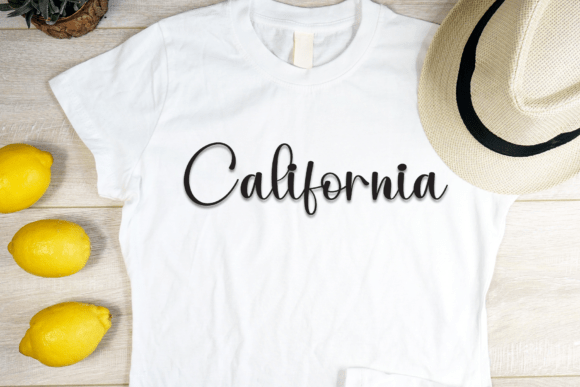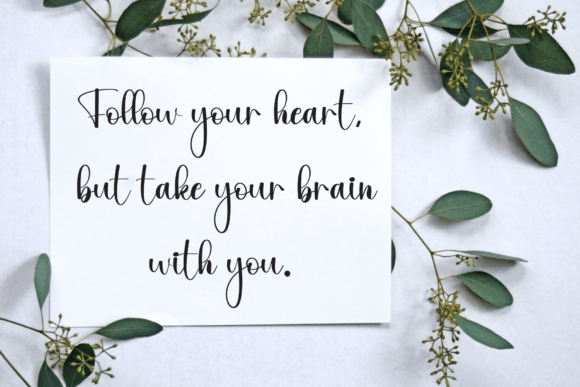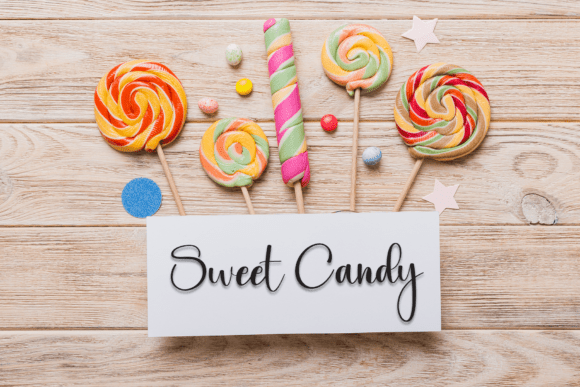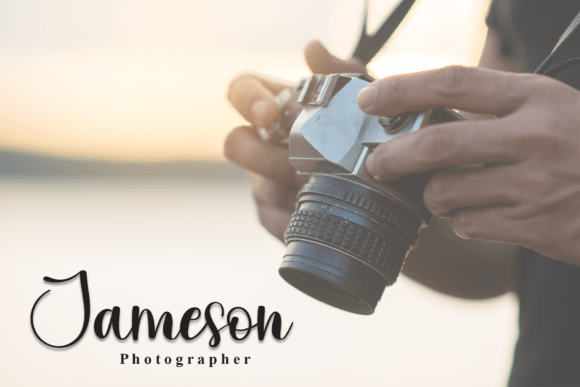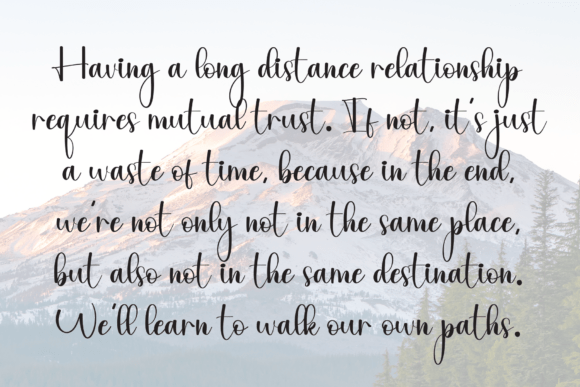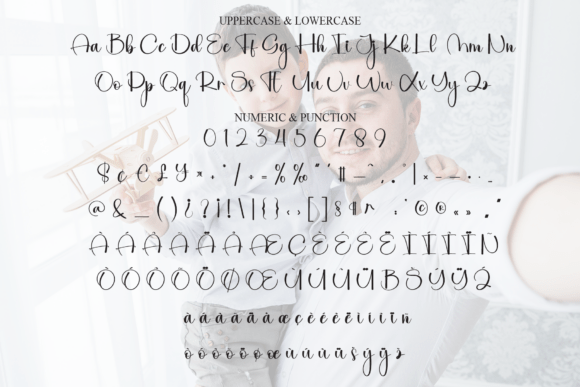
Introducing Father Font: A Heartwarming Handwritten Script for Sentimental Designs
In the world of typography, fonts play a crucial role in conveying emotions and setting the tone for a design. When it comes to creating sentimental and personal projects, a font that exudes warmth and friendliness is essential. This is where “Father” Font comes into play – a beautiful, handwritten script that combines heartfelt charm with a touch of modern flair.
The Characteristics of Father Font
“Father” Font is a long swash, casual script-style font that boasts a unique and captivating aesthetic. Its characteristics can be summarized as follows:
- Warm and Playful: The font features a warm and playful tone that makes it perfect for designs that require a personal touch.
- Handwritten Style: The font’s handwritten style gives it a human and organic feel, making it ideal for sentimental designs and projects.
- Long Swashes: The font’s long swashes add a touch of elegance and sophistication, making it suitable for a wide range of design applications.
- Modern Flair: The font’s modern flair ensures that it remains fresh and contemporary, making it perfect for designers and crafters who want to create unique and eye-catching designs.
Use Cases for Father Font
“Father” Font is a versatile font that can be used for a wide range of design applications. Some of the most popular use cases include:
- Father’s Day Projects: The font’s warm and playful tone makes it perfect for Father’s Day projects, such as greeting cards, posters, and social media graphics.
- Sentimental Designs: The font’s heartfelt charm makes it ideal for sentimental designs, such as wedding invitations, baby shower announcements, and memorial designs.
- Branding: The font’s modern flair and casual script style make it suitable for branding applications, such as logos, business cards, and letterheads.
- Crafting and DIY Projects: The font’s handmade aesthetic makes it perfect for crafting and DIY projects, such as scrapbooking, journaling, and handmade cards.
Why Choose Father Font?
With so many fonts available, why choose “Father” Font for your design projects? Here are a few compelling reasons:
- Unique Aesthetic: The font’s unique blend of warmth, playfulness, and modern flair makes it stand out from other fonts.
- Emotional Connection: The font’s handwritten style and sentimental tone help create an emotional connection with the audience.
- Versatility: The font’s versatility makes it suitable for a wide range of design applications, from digital designs to print materials.
- Easy to Read: The font’s clear and legible design makes it easy to read, even at small sizes.
Tips for Using Father Font
To get the most out of “Father” Font, here are a few tips to keep in mind:
- Pair with Other Fonts: Pair the font with other fonts to create visual interest and contrast.
- Use for Headings and Titles: Use the font for headings and titles to add a touch of elegance and sophistication.
- Experiment with Colors: Experiment with different colors to find the perfect combination that suits your design.
- Keep it Simple: Keep your design simple and clean to let the font shine.
In conclusion, “Father” Font is a beautiful and versatile handwritten font that is perfect for sentimental designs, Father’s Day projects, branding, and crafting. Its unique blend of warmth, playfulness, and modern flair makes it a standout font that can help you create unique and eye-catching designs. Whether you’re a designer or crafter, “Father” Font is an excellent addition to your font collection.